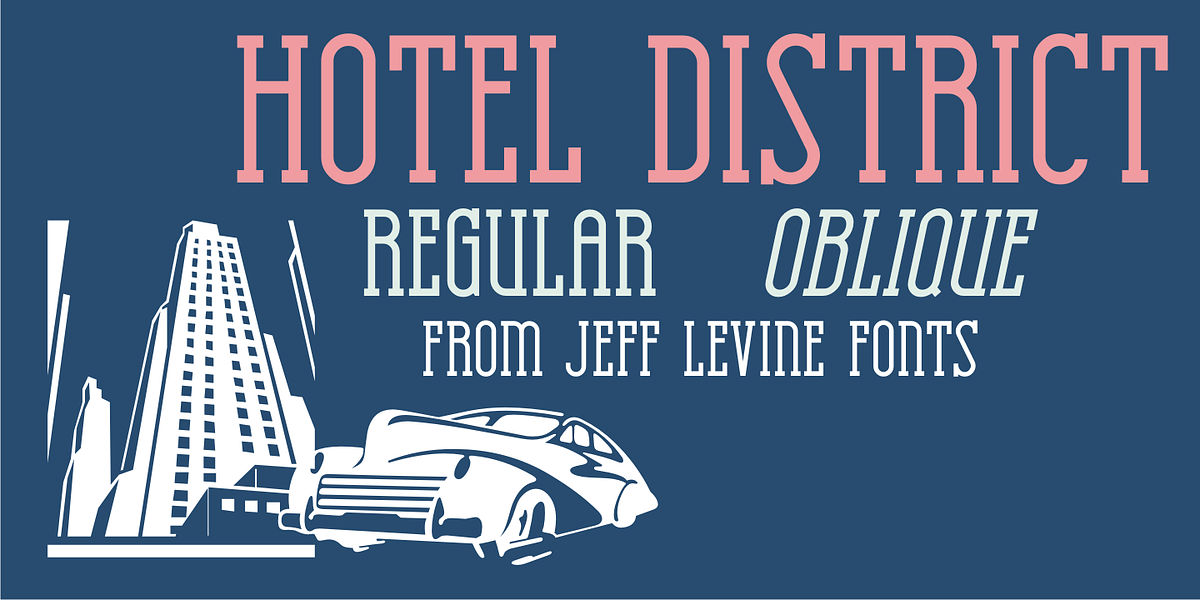
Hotel District JNL
The sans serif type style for the specialty font Nameplate JNL was given a serif treatment and is now Hotel District JNL complete with a full character set.
Originally inspired by two Art Deco-era metal door signs saying "Men" and "Ladies", the thin lettering lends itself well to period pieces as well as contemporary design work.